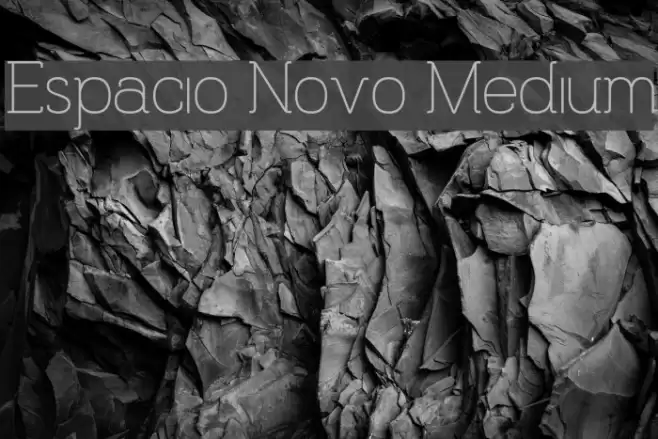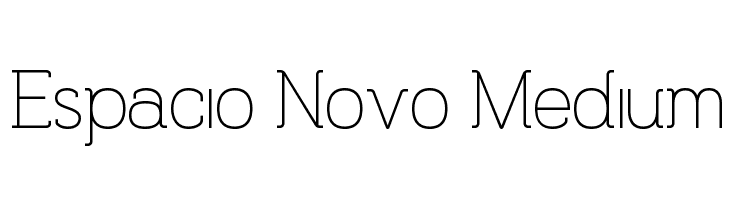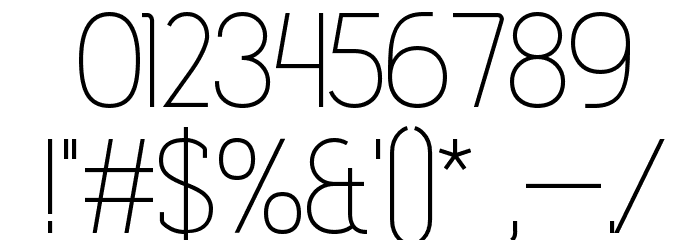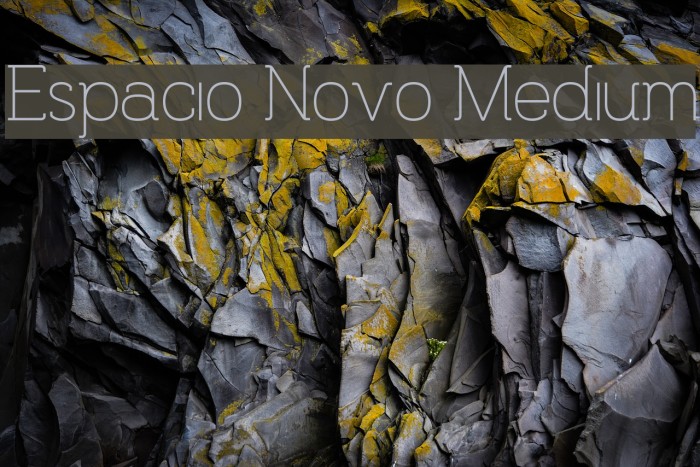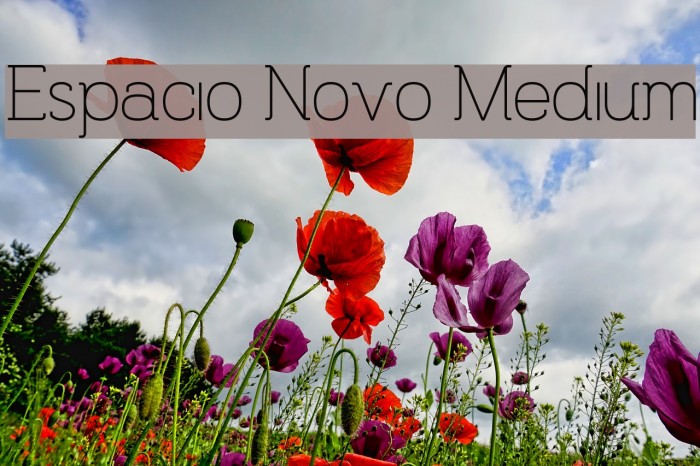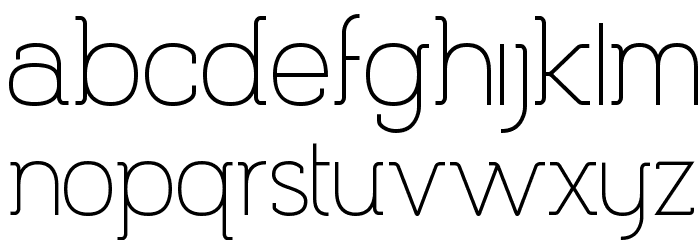
Espacio Novo Medium Font
Espacio Novo Medium Description
This font features a clean and modern sans-serif design with a geometric structure. The characters are evenly spaced, providing a balanced and harmonious appearance. The uppercase letters are tall and elegant, while the lowercase letters maintain a consistent height, enhancing readability. The numerals are clear and distinct, making them suitable for various applications. Special characters are included, adding versatility to the font. The overall design is sleek and minimalistic, making it ideal for contemporary projects.
A modern, geometric sans-serif font with clean lines and balanced spacing from Uncategorized fonts.